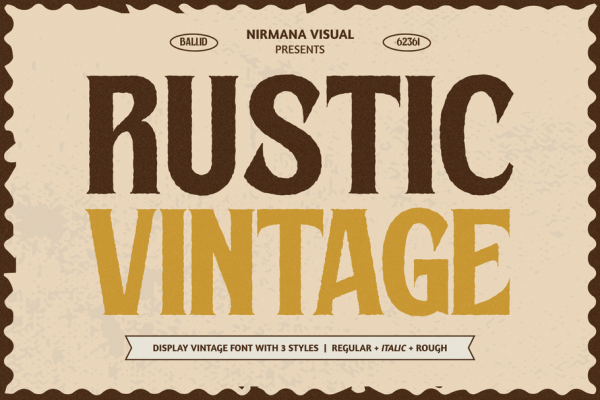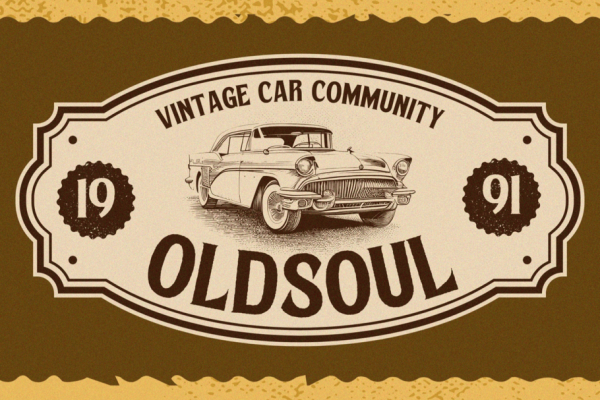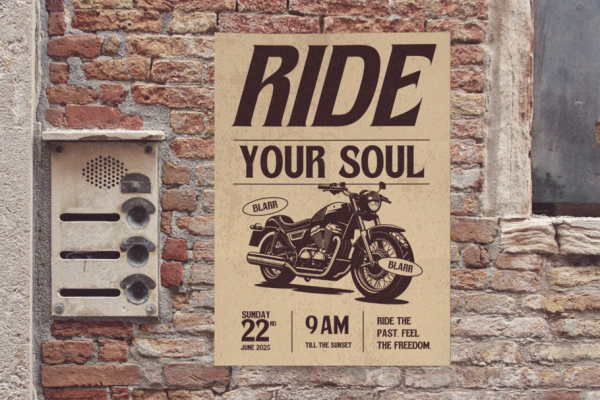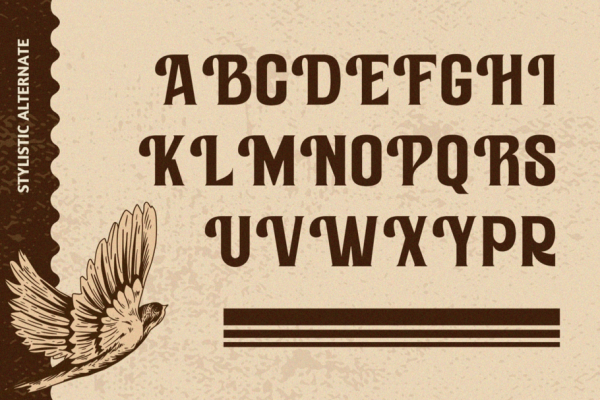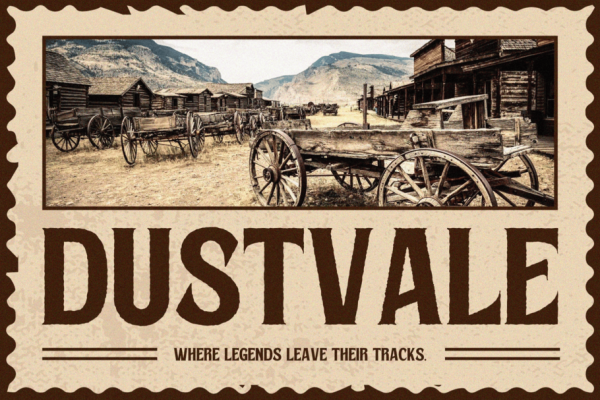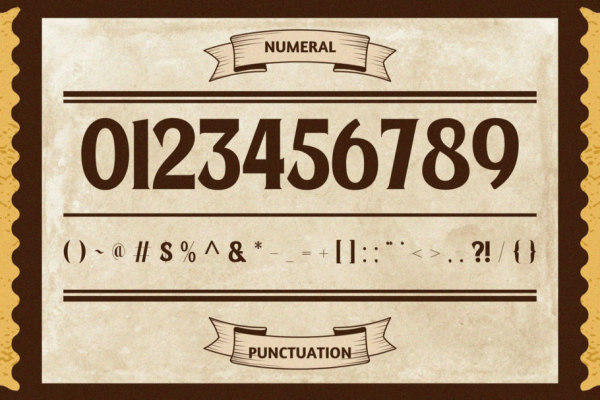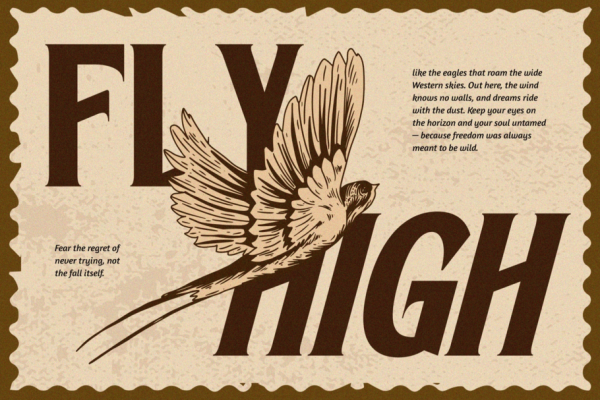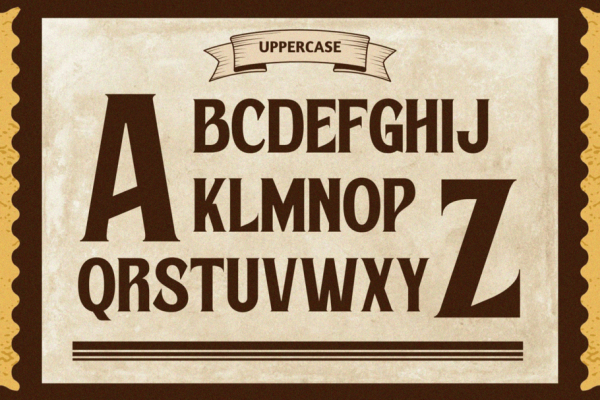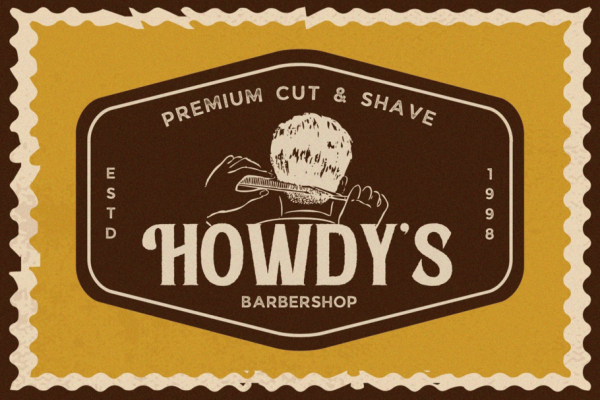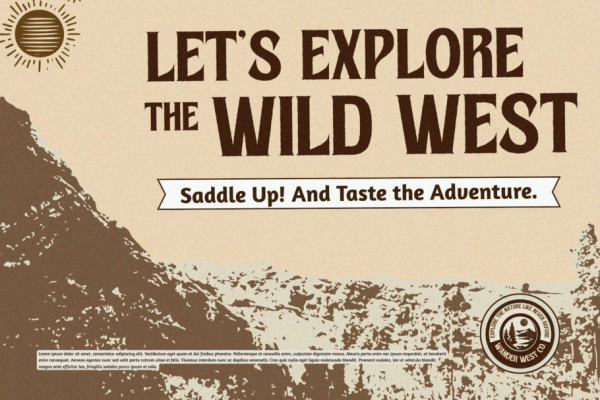
Rustic Vintage offers beautiful typographic harmony for a diversity of design projects, including logos & branding, social media posts, advertisements & product designs.